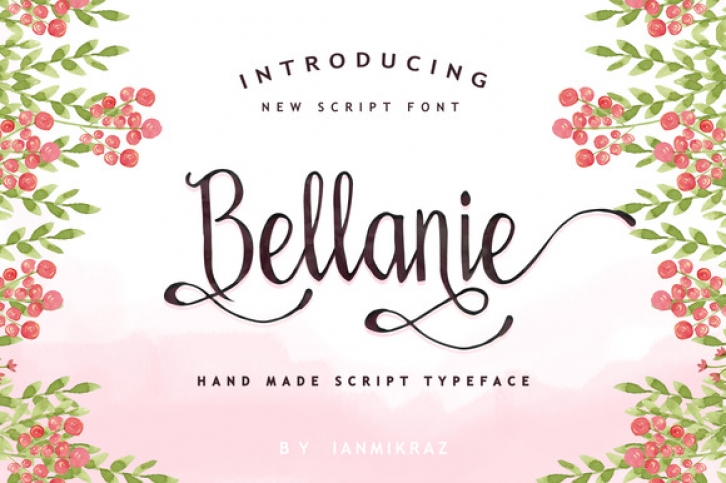
Bellanie is a stunning font, perfect for headlines and logotype. This romantic and elegant script font is ideal for giving any project a rustic charm.